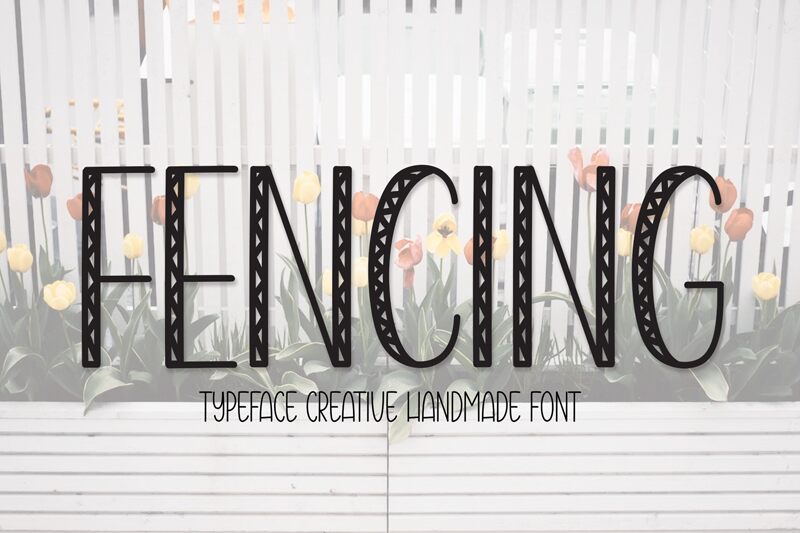
Fencing
Fencing, a captivating display font crafted by Andi Moz, exudes a delightful and friendly aura. This condensed, decorative typeface boasts a charming handwritten aesthetic, complete with playful curves and whimsical flourishes. The unique letterforms possess a sweet, approachable quality, inviting the viewer to engage with the text in a heartwarming manner.
This versatile font lends itself beautifully to a variety of design applications, from wedding invitations and greeting cards to event branding and packaging. Its playful nature and visual appeal make it an excellent choice for projects seeking a touch of warmth and personality, effectively capturing the essence of joyful celebrations and personal expressions.